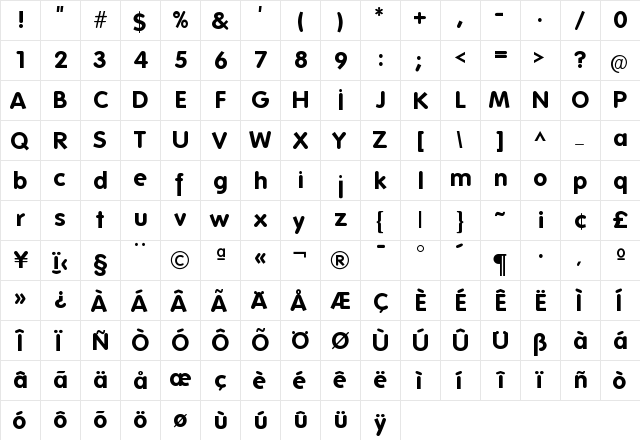
Folks Bold Font Preview
Folks Bold
Design Context for Folks Typeface
Folks is a composed and adaptable typeface that performs quietly and consistently across a wide range of design contexts. Its bold stroke weight gives it real presence on the page.